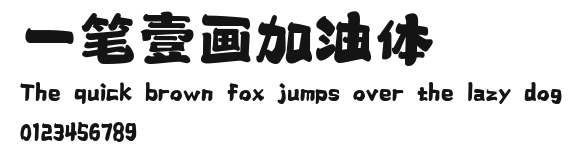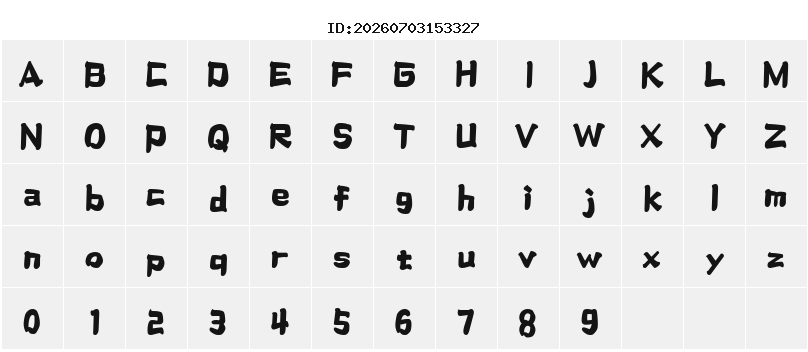
一笔壹画加油体 Preview
• Font Name: 一笔壹画加油体
About 一笔壹画加油体.ttf
一笔壹画加油体.ttf is a modern, elegant sans-serif font designed for ultimate readability and visual harmony. Perfect for branding, headlines, web design, and print materials.